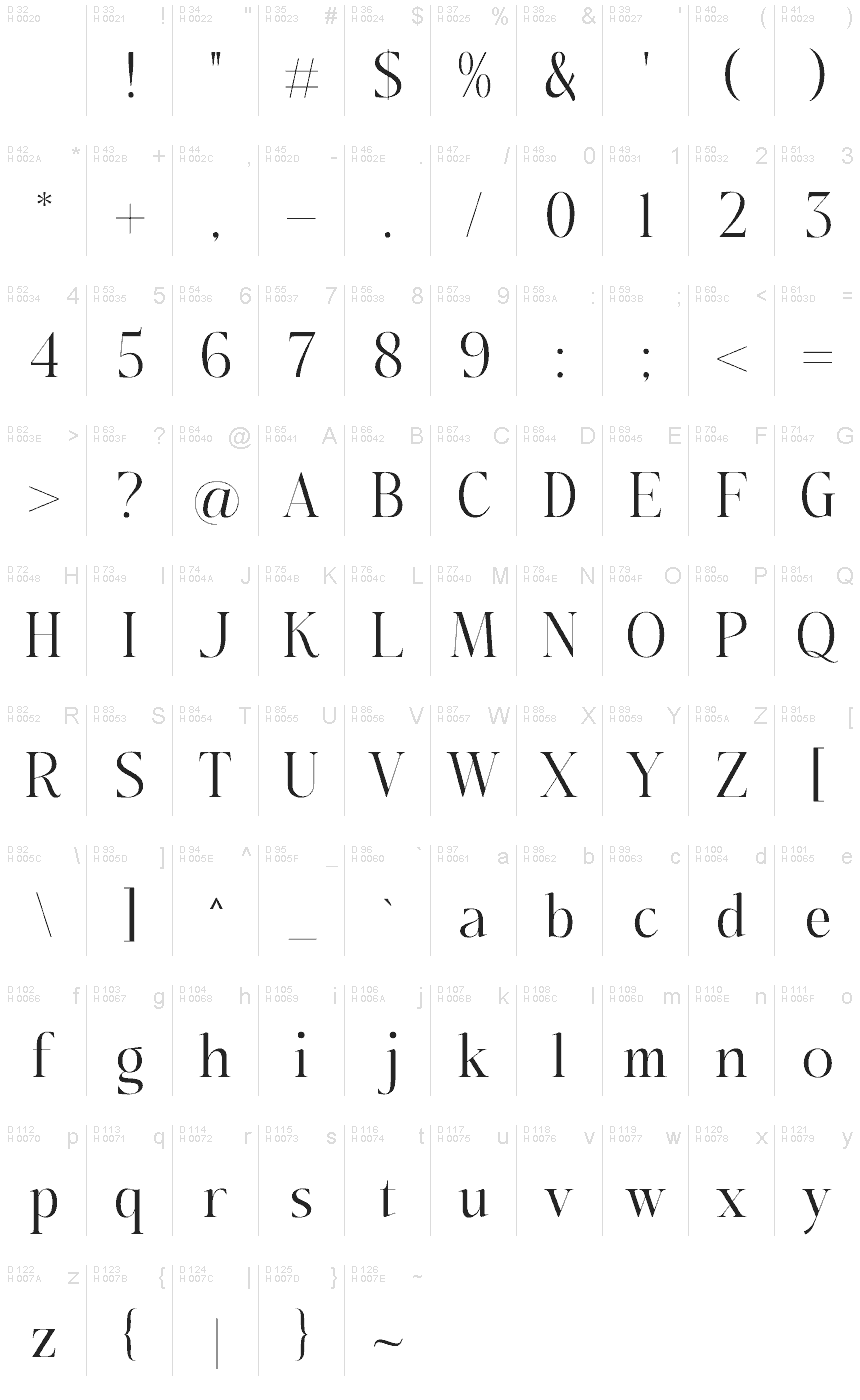
Cathiren
Cathiren font by Storytype Studio is an elegant serif font that combines refined details with a classic appeal. The graceful composition and sophisticated overall appearance transform it into a beautiful choice for print and digital projects.